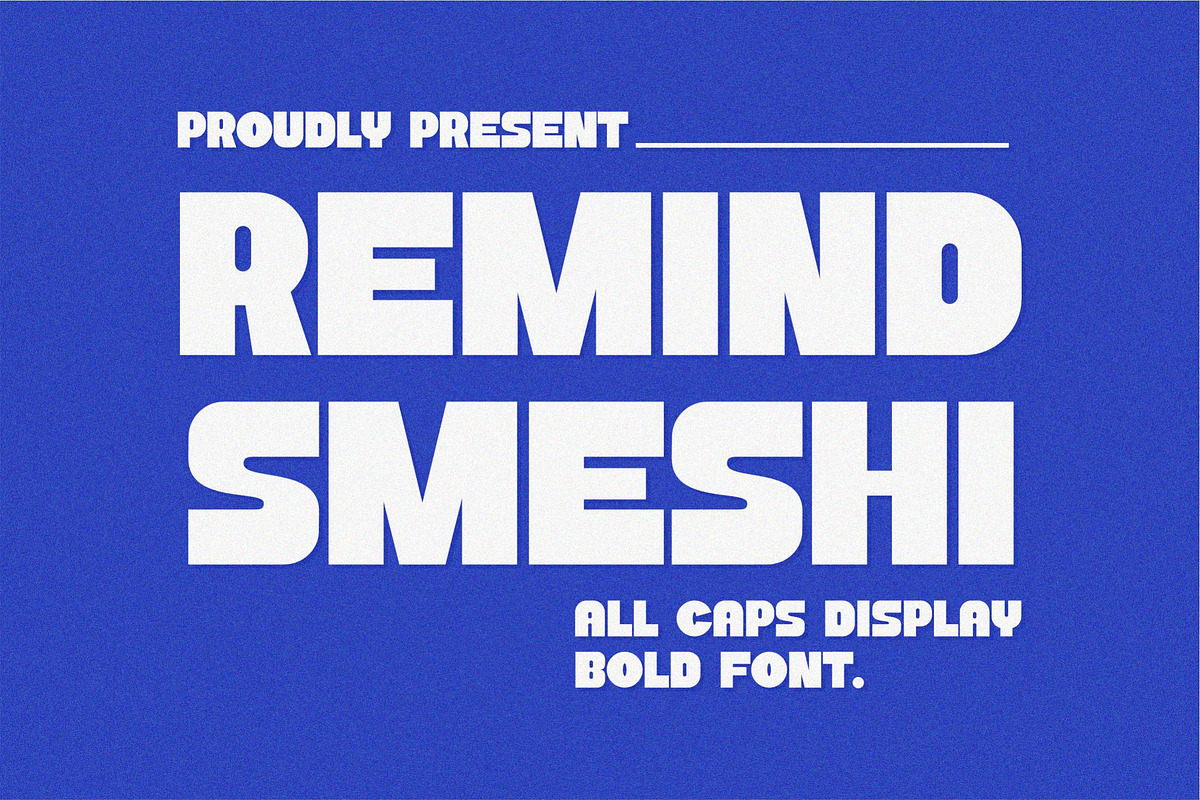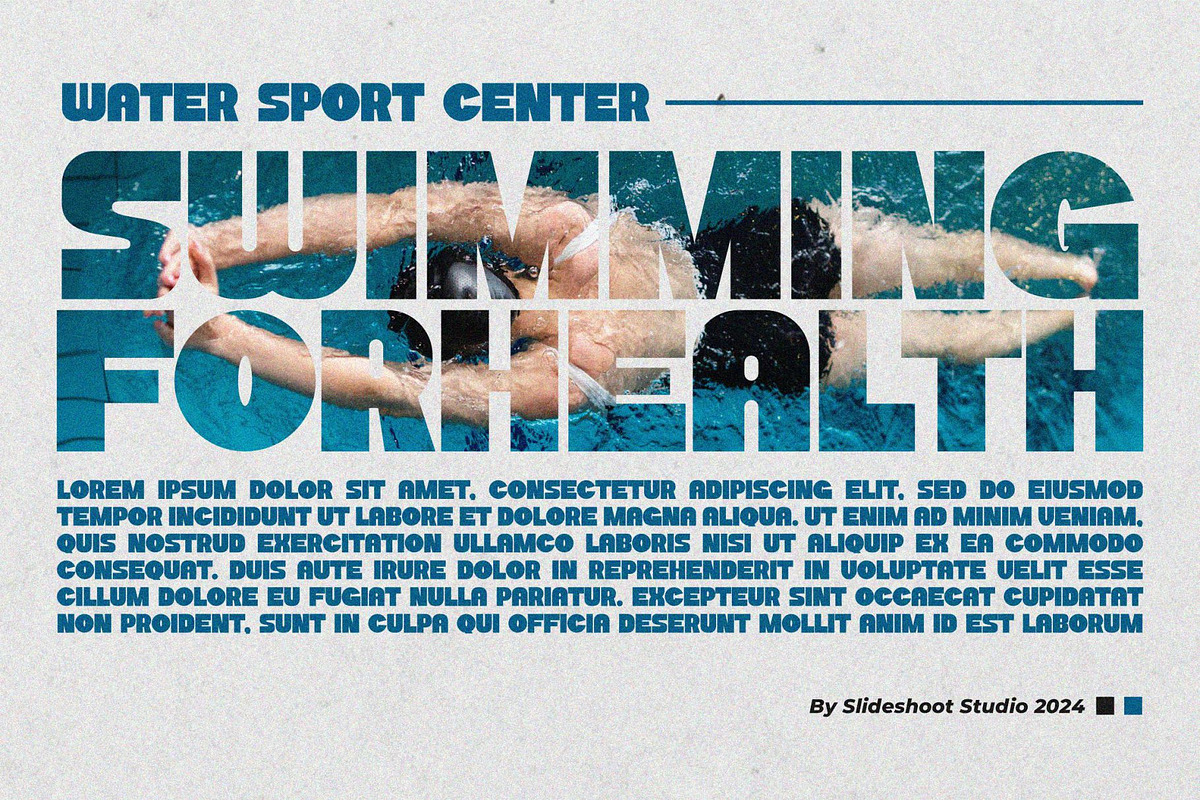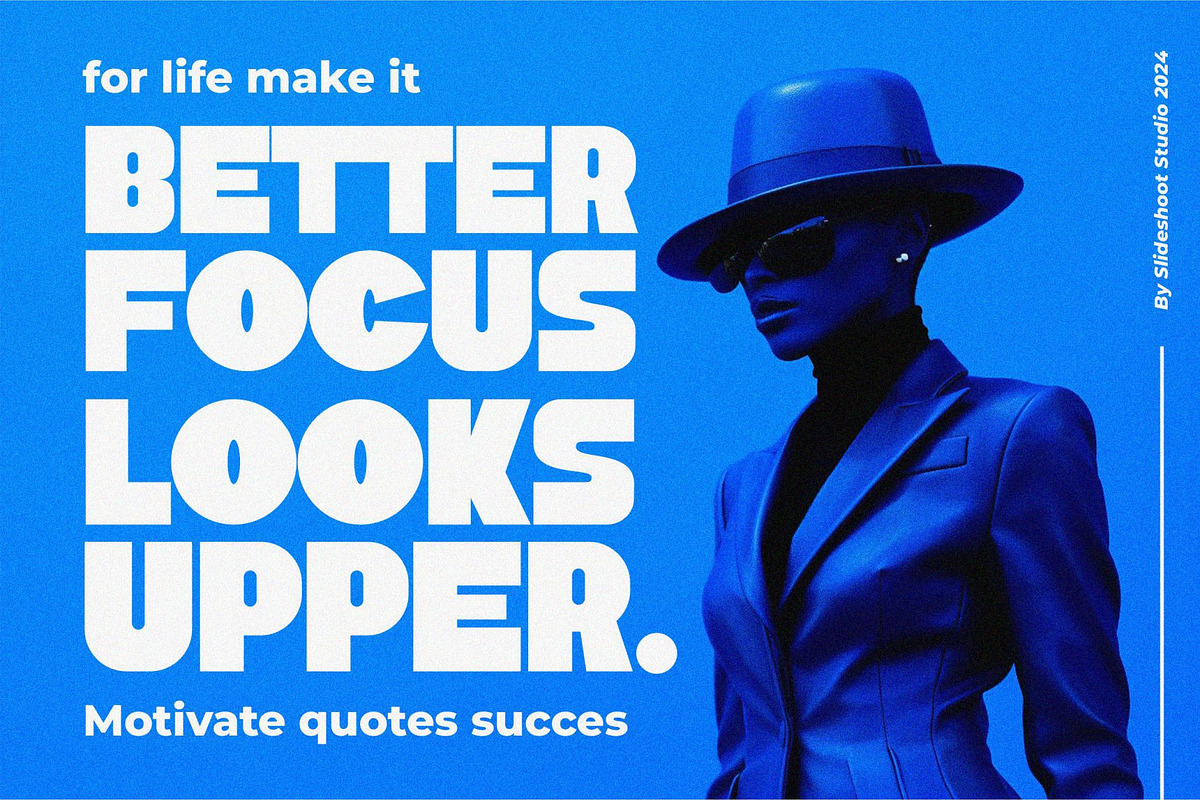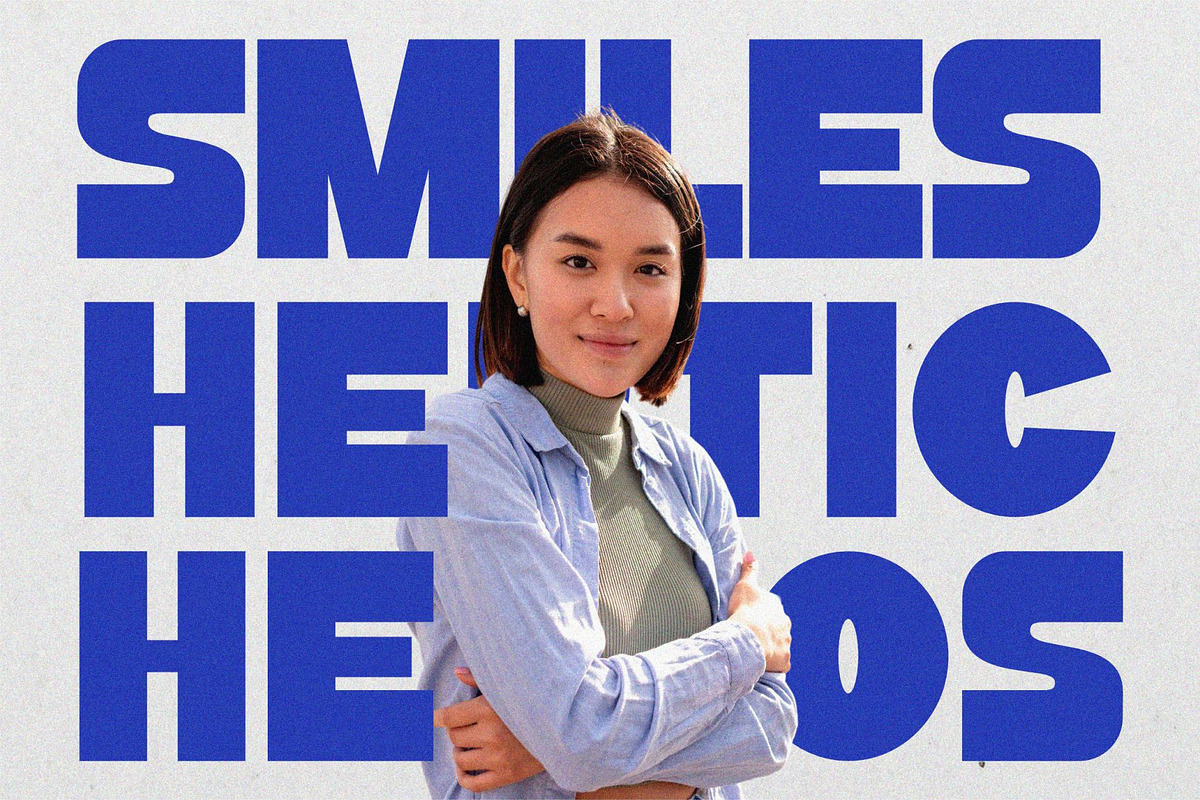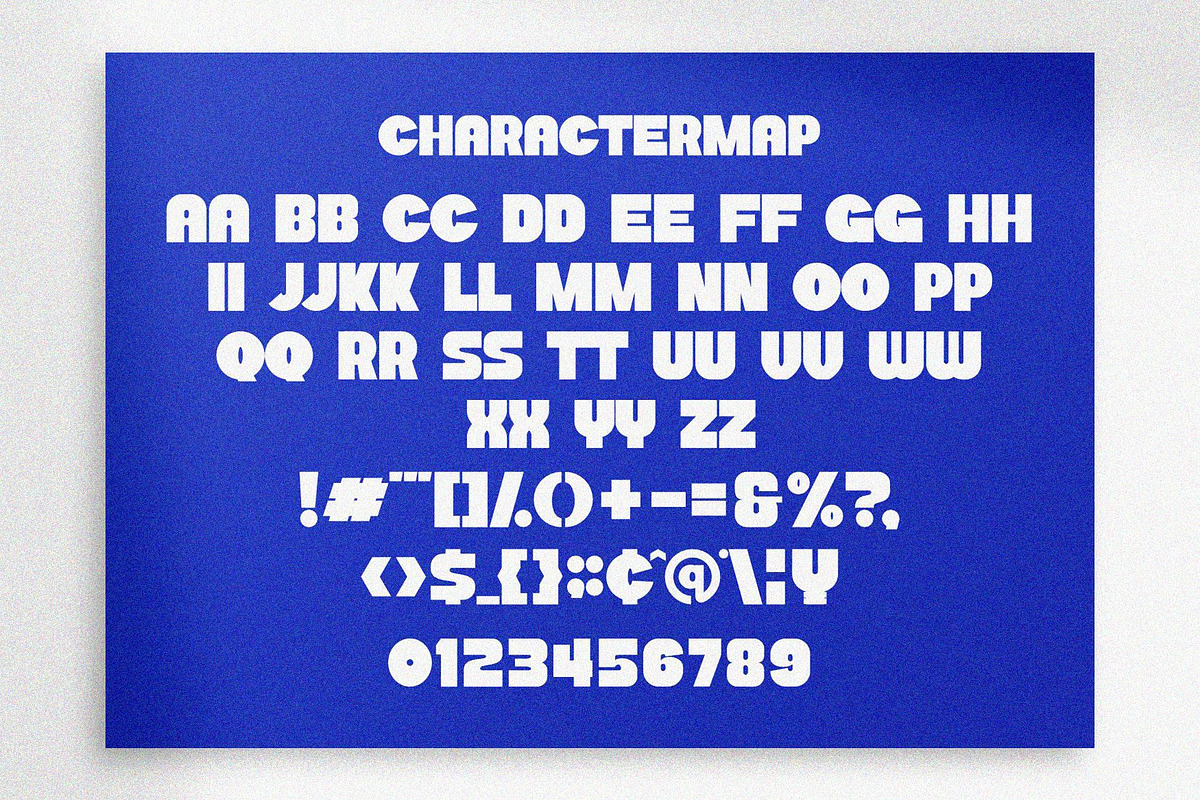
Remind Smeshi || All Caps Display
Introducing Remind Smeshi - An bold modern sans serif with ton of stylistic alternates to choose. Its clean and minimalistic works wonderfully on its own for logos, headlines, posters, packaging and many more! And with Three different weights to choose, your option to create more unique and versatile design is a lot wider. Have fun and create more.. Your Imagination only your limit!!